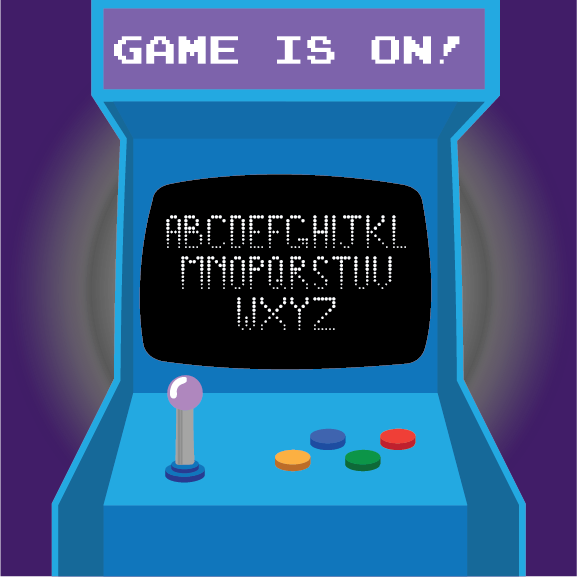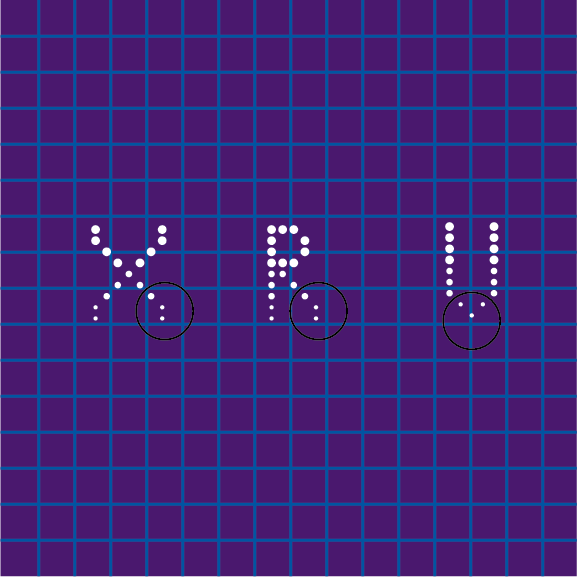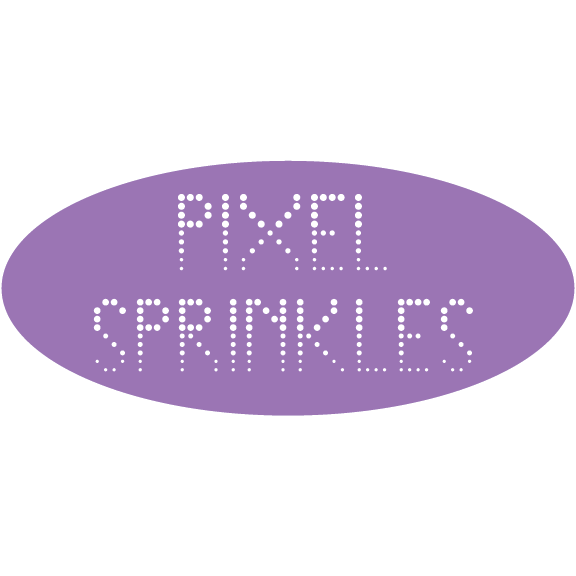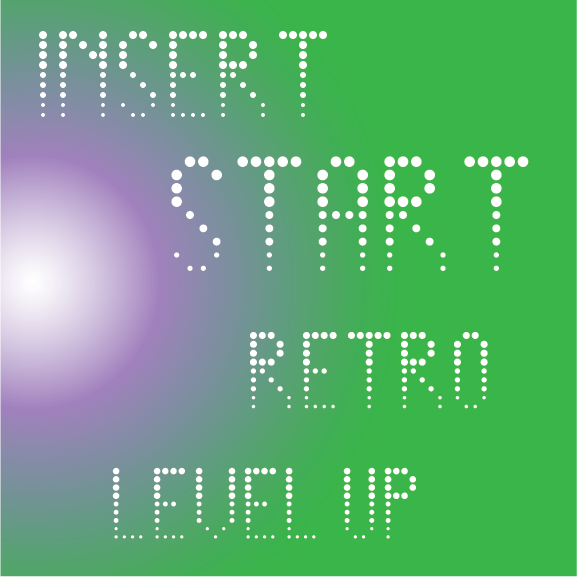
• This typeface is a modular, dot based display font constructed from evenly spaced circular units that create each letterform through repetition and rhythm. Giving a strong digital and pixel-inspired aesthetic. This font creates a playful yet technical personality, designed primarily for headlines and experimental layouts.